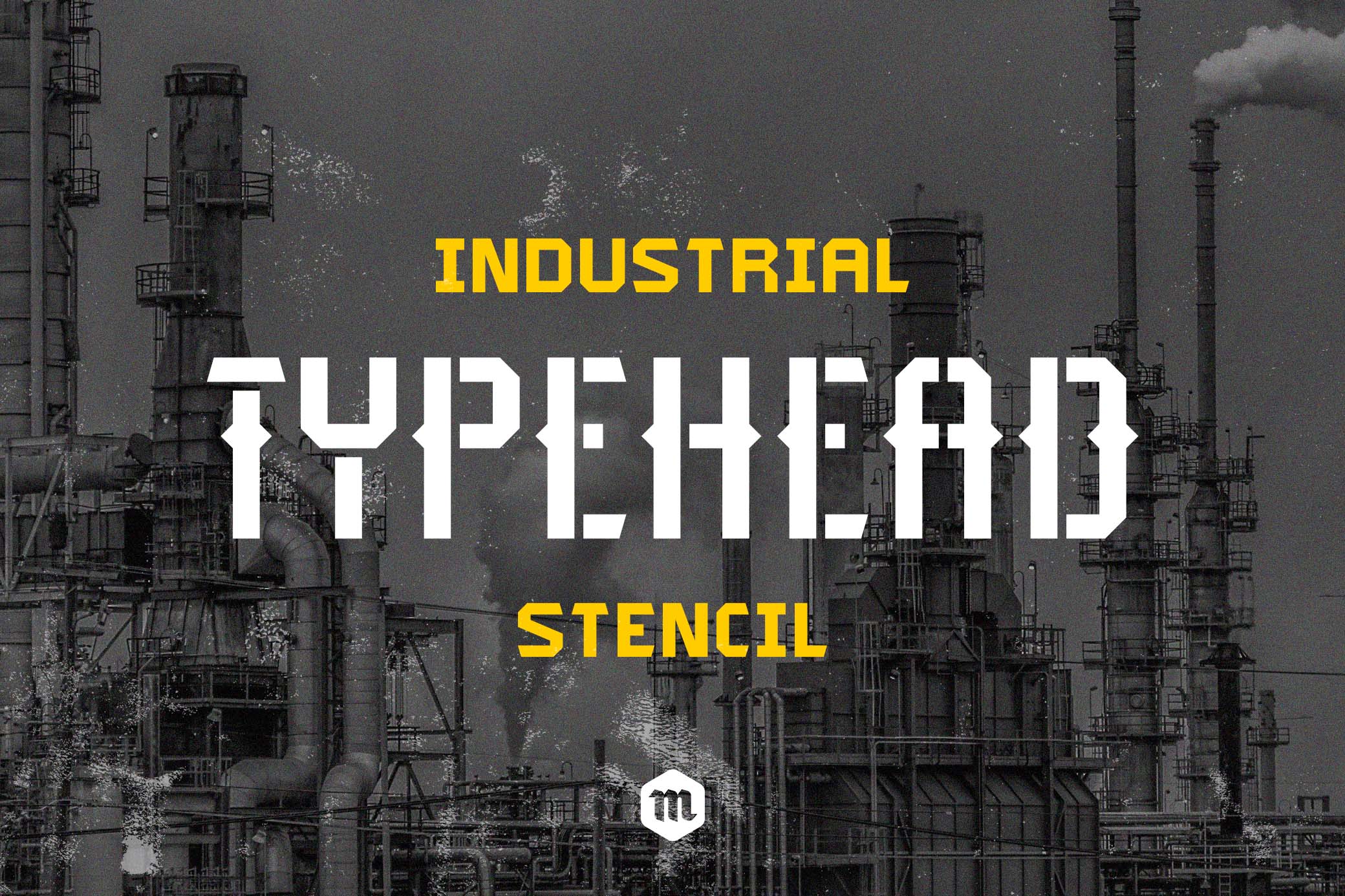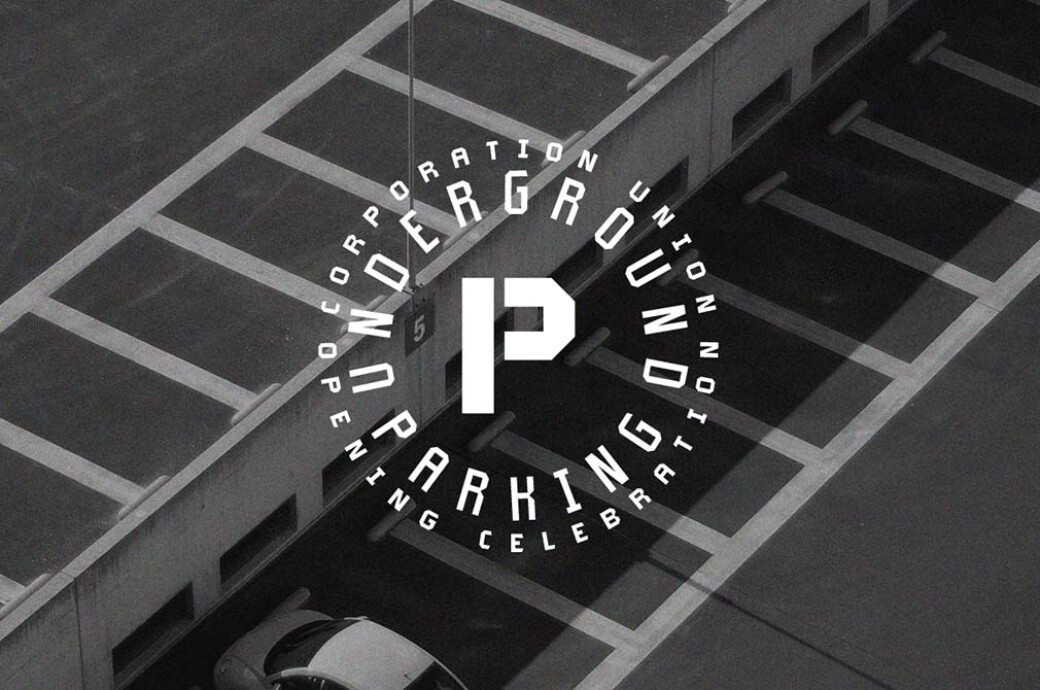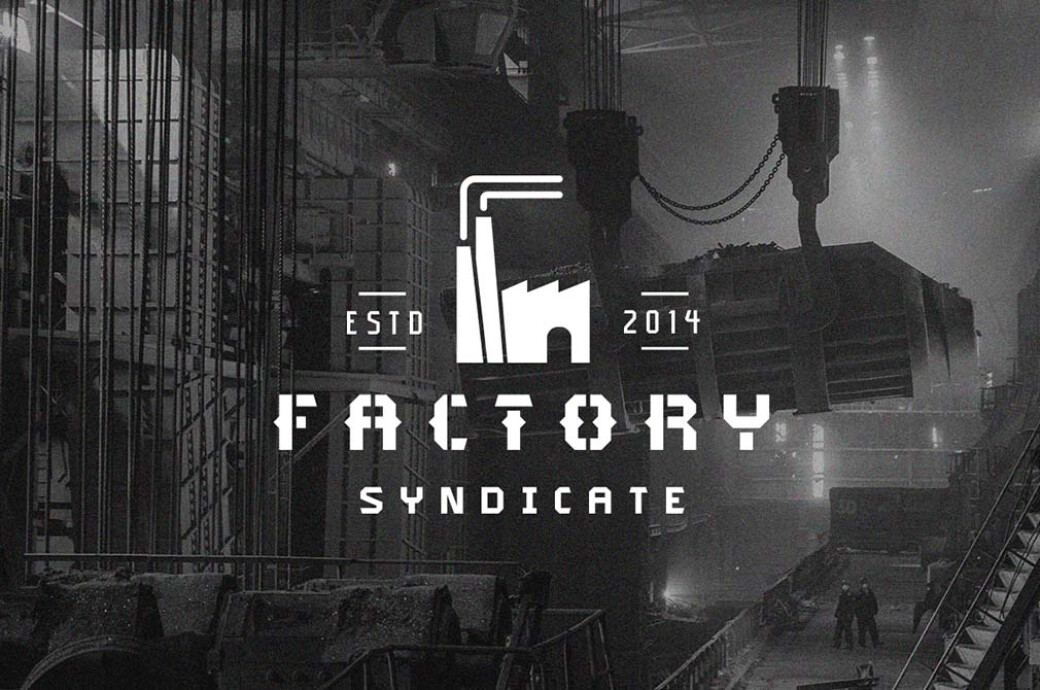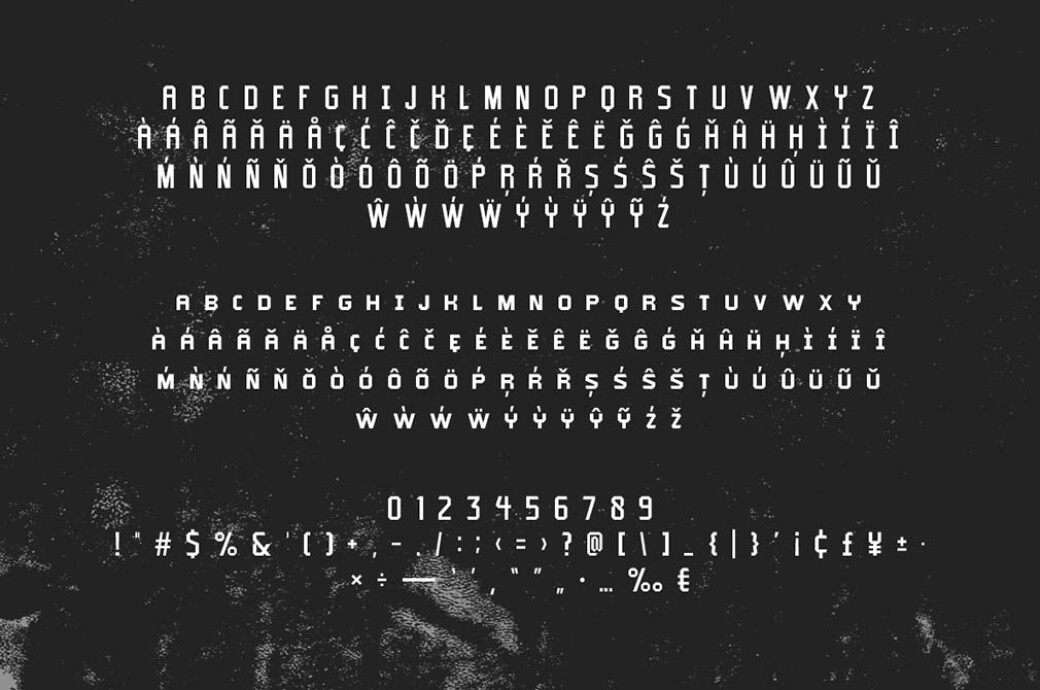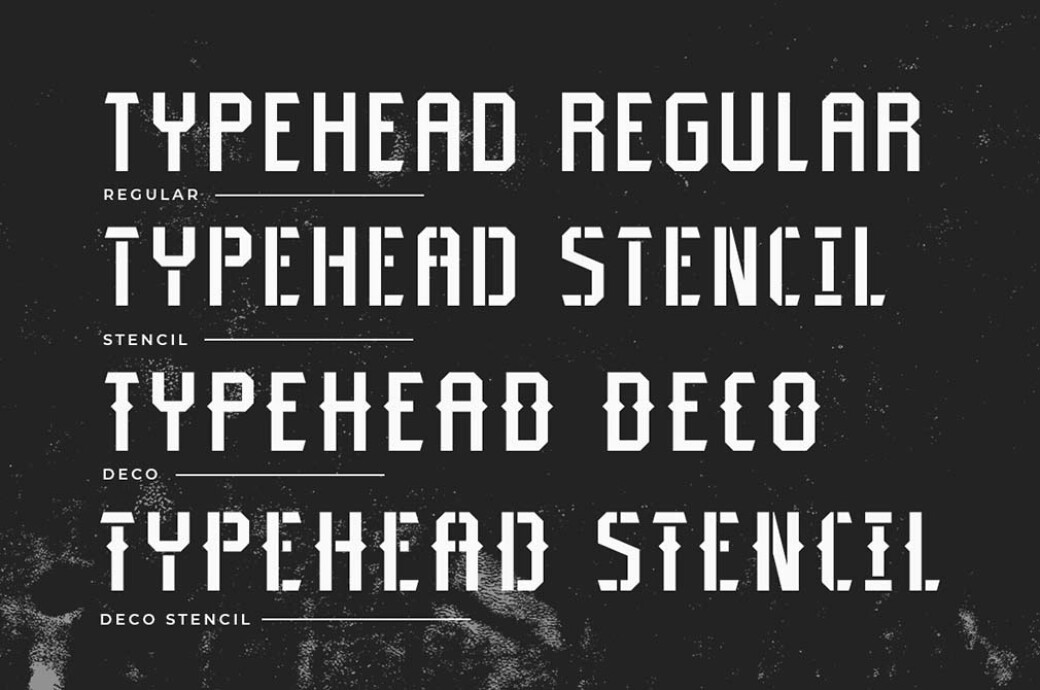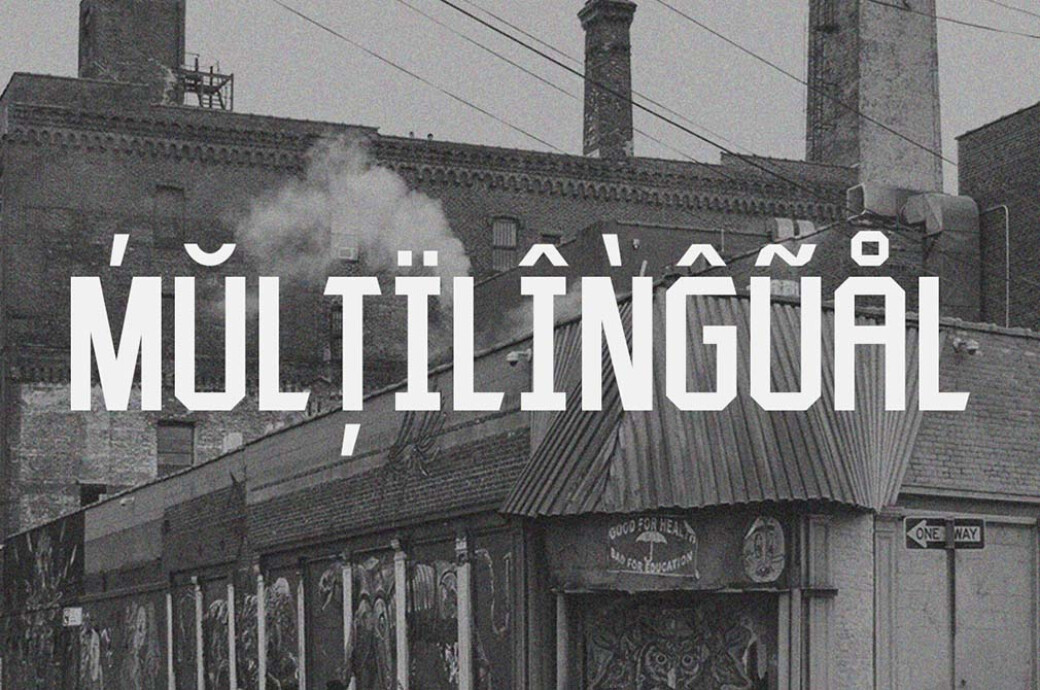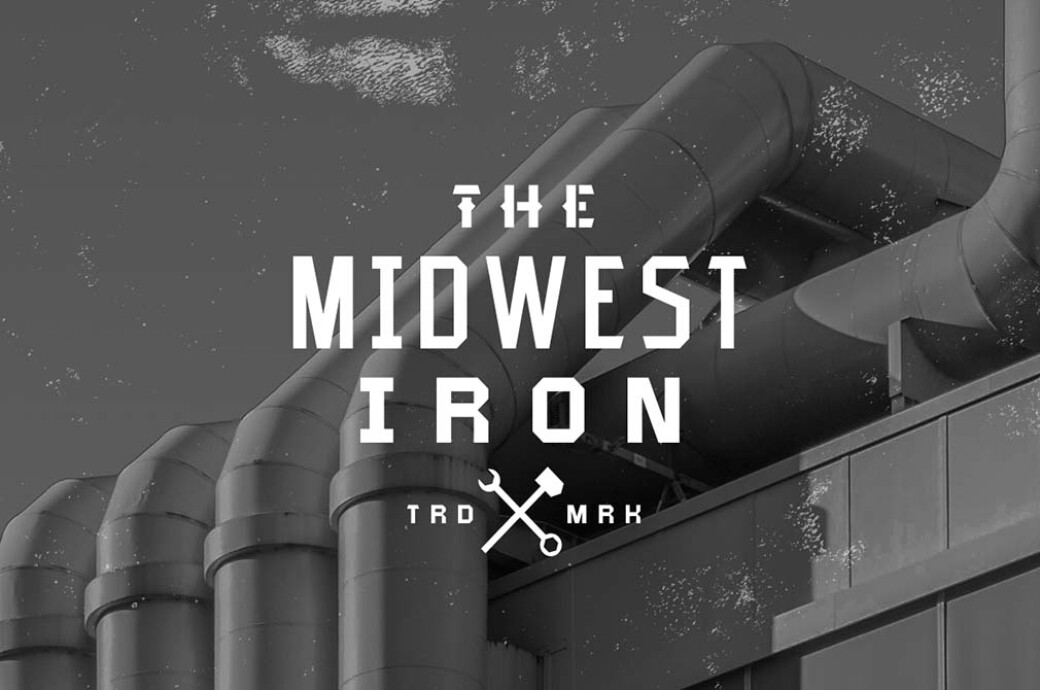
Typehead Font
It’s time to bring your artistic visions to life! This font is your next go-to tool, a unique typeface that merges aesthetic dynamism with functional versatility.Designed with an industrial aesthetic, Typehead Font boasts bold, edgy forms that command attention in every setting. Offered in 4 distinct styles, this type has the flexibility to suit any design situation from branding to editorial. Its extensive Latin script language support ensures inclusivity and accessibility, reaching a wide audience while maintaining the stylish impact. With both upper and lower uppercase characters, designers are empowered with a breadth of creative possibilities to bring depth and nuance to their projects. Whether you’re crafting a vintage poster or designing a modern website, Typehead will amplify your work's visual appeal and communicative strength.